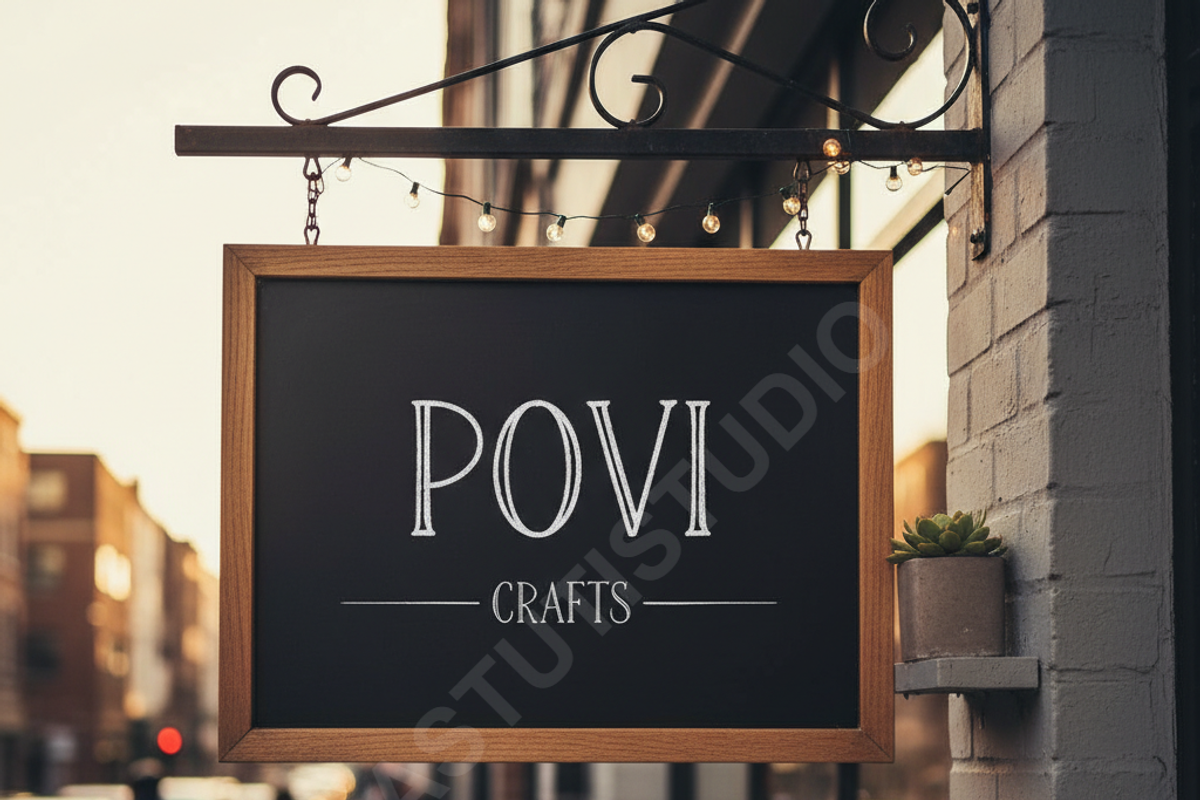
Povi | Modern Luxury Serif Typeface
Povi is a sophisticated serif typeface meticulously crafted for high-end aesthetics. Balancing timeless elegance with contemporary precision, Povi offers a refined touch to any creative project. It is the perfect choice for designers aiming to elevate their brand identity with a sense of quiet luxury and professional polish.
- High-contrast strokes for a premium, editorial feel
- Unique custom ligatures and stylistic alternates
- Extensive multilingual character support
- Optimized kerning for professional-grade readability
- Versatile design suitable for luxury branding, fashion magazines, and high-end social media content